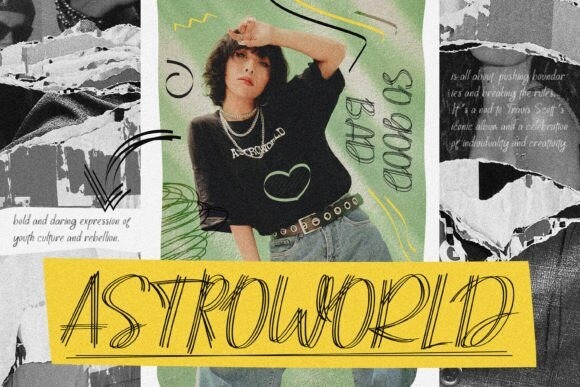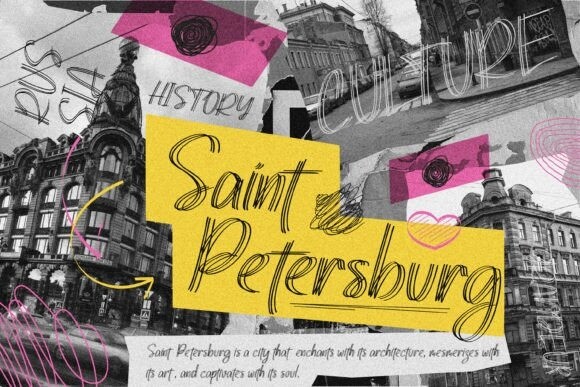
Impala Font
impala is a cute and quirky handwritten font perfect for any design you wish to create! Add it to your logos, banners, book covers, magazines, tote bags, and more, and notice how it makes them come alive!